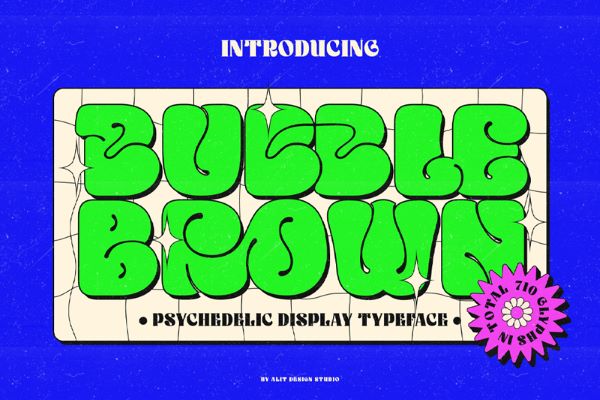
Bubble Brown Font
Bubble Brown Font is a Groovy Font by Alit Design that stacks bold, chunky letterforms with unexpected ligature details and a bouncy psychedelic energy that works like a light smoke effect through its curves. It is a surprising and delightful combination — fat and rounded on the outside, trippy and complex on the inside, all wrapped in a retro personality that demands a second look.
Perfect for yoga posters, concert banners, retro hoodies, spiritual designs, and any creative project craving that distinct 70s psychedelic warmth. Browse our full library of Free Fonts and discover more expressive display typefaces from independent designers worldwide.